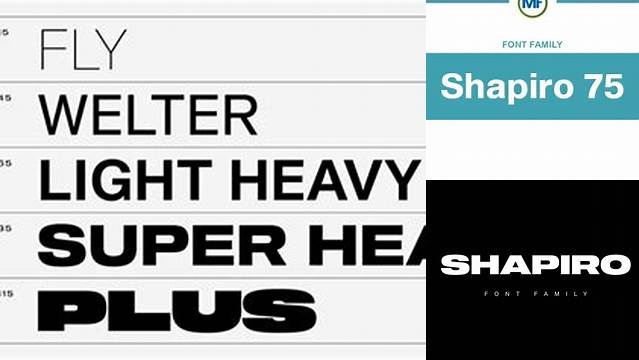
Hey guys! Are you on the hunt for a bold and impactful font that can make your designs pop? Look no further! This comprehensive guide will walk you through everything you need to know about Shapiro 75 Heavy font free download. We'll cover where to find it, how to install it, and even some cool ways to use it in your projects. Get ready to unleash the power of this awesome typeface!
1. Unveiling the Shapiro 75 Heavy Font: What Makes It Special?
So, what's the deal with Shapiro 75 Heavy font free download? Well, this font is a real heavyweight in the typography world. It's a display font, meaning it's designed to grab attention. Think headlines, titles, and anything that needs to shout a message! Its bold and robust letterforms make it incredibly legible, even at larger sizes. This means your audience can easily read your message. It offers excellent readability. It's not just about being bold; Shapiro 75 Heavy also has a certain aesthetic flair. It's got a modern feel that's still got a touch of classic design, giving it versatility that few fonts have. Whether you're working on a website, a poster, or a logo, Shapiro 75 Heavy can bring a touch of class and sophistication. The generous spacing between the characters ensures that the words remain clear and distinguishable, thereby enhancing the overall appeal. Many designers are drawn to the Shapiro 75 Heavy font because of its clear and concise look. The font can enhance readability, even from a distance, which is very helpful in many design projects. Because it is a display font, it works best for titles and headings that need to catch the eye. It is the perfect choice if you want to make a striking impression. Shapiro 75 Heavy font free download offers a unique blend of style and practicality, making it a great addition to any designer's toolkit. It helps your work stand out. If you're looking for a font that speaks volumes, Shapiro 75 Heavy is definitely worth checking out. It offers a unique character that can significantly enhance your creative projects. You will be able to make a bold statement with your design work. It has a high level of impact that enhances the message it is trying to convey. It is an amazing typeface. This font is a really amazing tool for creating designs that make a statement. Its bold style has a strong and visual effect.
5. Shapiro 75 Heavy in Graphic Design: Best Practices and Tips
Alright, you've got Shapiro 75 Heavy font free download installed, and you're ready to get creative! Here are some best practices and tips to make your designs look amazing. Since it is a heavy display font, use it sparingly. It works best for titles, headings, and short phrases. Avoid using it for body text, as it can be hard to read at smaller sizes. Pair it with a more readable font for body copy. This will help make your design aesthetically pleasing and also make it easier to read. Experiment with different font sizes and weights. The impact of the font increases with size. Play with the font's weight to achieve the desired effect. In graphic design, the font should match the message. Choose colors that complement the font. Contrast is a great tool. Consider the overall design. When choosing colors, think about the message you want to communicate. Make sure your design is still easy to read. Try to enhance visual appeal. The spacing between letters and lines plays a very important role. Ensure that the spacing is correct. Don't be afraid to experiment with different design techniques. Try different techniques. This will allow you to make the most of the font. Always be creative! When using Shapiro 75 Heavy font free download, consider its bold personality and use it strategically to grab attention. Practice using it will help you create eye-catching designs.
6. Using Shapiro 75 Heavy for Logos: Dos and Don'ts
Creating a logo with Shapiro 75 Heavy font free download can be a powerful move. However, there are some dos and don'ts to keep in mind. Do: Choose this font if your brand has a strong, bold personality. The font's robust character can convey a sense of authority, confidence, and modernity. If your company's personality is strong, Shapiro 75 Heavy is ideal. Ensure your brand is well-defined. Do: Use it for the main title or the company name within the logo. Its strong presence makes it perfect for the core identity. Keep your logo visible. Do: Make sure it complements your overall design. Pair it with a simpler font for any supporting text, to ensure balance. Balance is key. Don't: Overuse it. Avoid using it for any details or in small sizes. It's not suitable for intricate designs. Avoid overcrowding your logo. Don't: Forget to consider the brand. Make sure the font aligns with your brand's values and target audience. Ensure the font aligns with your brand. Don't: Ignore readability. Test the logo at different sizes to make sure it's clear and legible. Make sure it is legible. When it comes to logos, simplicity is key, and Shapiro 75 Heavy font free download can be a great starting point for a brand that wants to make a strong statement. Make sure your logo is effective, and the message is clear. It can enhance the quality of your branding when implemented correctly.
7. Shapiro 75 Heavy for Web Design: Optimizing for Readability
Using Shapiro 75 Heavy font free download in web design can be a real game-changer. However, it's crucial to optimize it for readability. Firstly, use it sparingly. Reserve it for headlines, page titles, and other areas where you want to draw immediate attention. Avoid it for body text, as it can make reading a chore. Secondly, consider font size and weight. Make sure the font size is appropriate for the context. It needs to be big enough to be easily readable but not so big that it overwhelms the page. Adjust the weight of the font to ensure it's legible across different devices. Thirdly, pay close attention to contrast. Ensure there is enough contrast between the text color and the background. This will make the text stand out and enhance readability. Another aspect is to think about your website design. Keep your web design responsive. This means the layout adapts to different screen sizes. This will ensure that your font looks great on all devices. Lastly, use it correctly. Check that the design is mobile-friendly. Ensure the text remains easy to read. Think about the user experience. Always use this font with purpose, prioritizing user experience above all else, which is important. This will maximize the impact of the font while maintaining readability. To achieve great results with the Shapiro 75 Heavy font free download in web design, a few simple tweaks can make a big difference. This includes making sure the font suits your needs.
8. Typography Tips: Combining Shapiro 75 Heavy with Other Fonts
Mixing and matching fonts can elevate your designs, especially when using Shapiro 75 Heavy font free download. Here are some typography tips to help you combine it with other fonts. The first tip is to choose a contrasting font for body text. Since Shapiro 75 Heavy is bold, pair it with a font that is more streamlined and easy to read. This will create visual contrast and improve readability. The second tip is to pick fonts that complement each other. Look for fonts that share a similar style or personality. This can create a cohesive and professional look. The third tip is to use a consistent hierarchy. Use Shapiro 75 Heavy for headings and titles, and use a different font for the body text. This will help you arrange your content. The fourth tip is to consider the font pairing. Consider the personality of the fonts. If you are designing for a professional business, opt for classic, reliable fonts. If you are going for a more trendy look, go for more modern fonts. The fifth tip is to balance different weights. If Shapiro 75 Heavy is in the headings, a lighter version of the same font can be used for subtitles. This helps the design. By carefully considering font combinations, you can create a unique and visually appealing design. When used correctly, Shapiro 75 Heavy font free download will enhance your design.